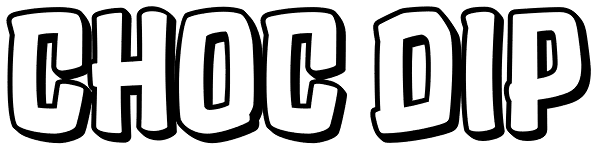
Choc Chip
Choc Chip is a font from my younger days as an apprentice sign writer -when breaking the rules of lettering was ok because I was new to the trade. It didn’t take long before this font was on posters, windows and buildings. With years of use and...
Choc Chip
Choc Dip